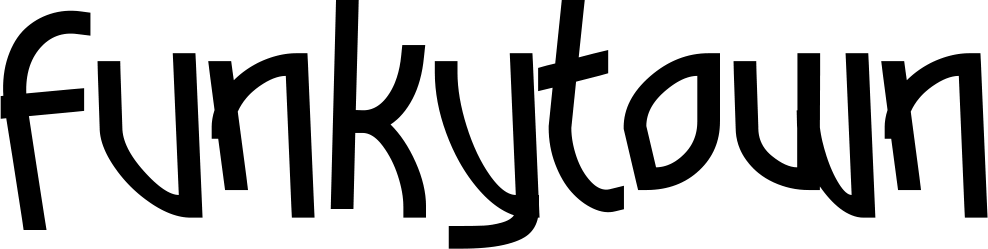
Funkytown Font
As you may understand, Funkytown falls into the cartoon font category. It consists of crooked, out-of-shape, monotone characters that look bold.
Funkytown covers both upper and lowercase letters as well as numbers, however, you don’t get general punctuation. You may find it a little hard to read but Funkytown can help you in writing your comic books, making print T-shirts, game interfaces, as well as so many other design areas!